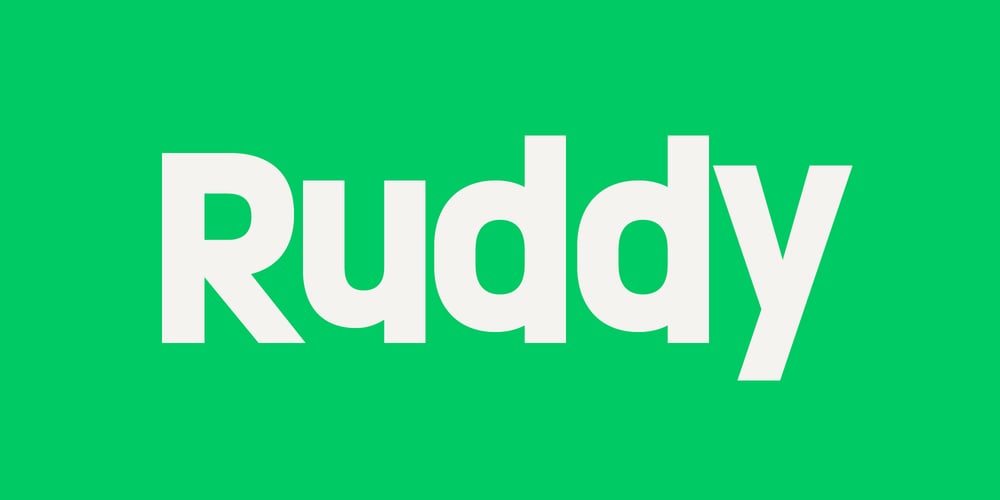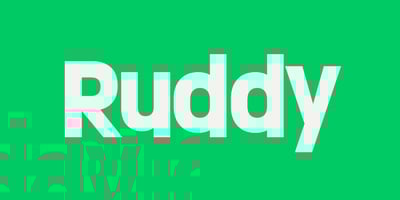
Ruddy Font Family was designed by Mariya Lish and published by Inhouse Type. Ruddy contains 8 styles and family package options. Ruddy is a display sans serif type family. It has a playful and mischievous presence. Exaggerated geometry and varied vertical character stem placement contribute to its animated appearance. Ruddy comes in 4 weights with matching italics. OpenType features include Contextual Alternates, Tabular Figures, Fractions, Numerators and Denominators.